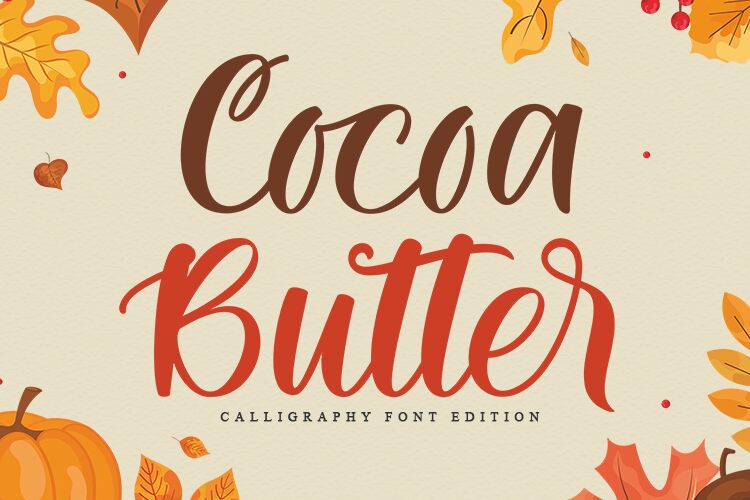
Cocoa Butter, a bold calligraphy font designed by Zain Fahroni, is an elegant choice for creating dynamic logos, stylish greeting cards, and stunning social media posts. Its intricate letterforms make it perfect for projects that require a touch of sophistication.